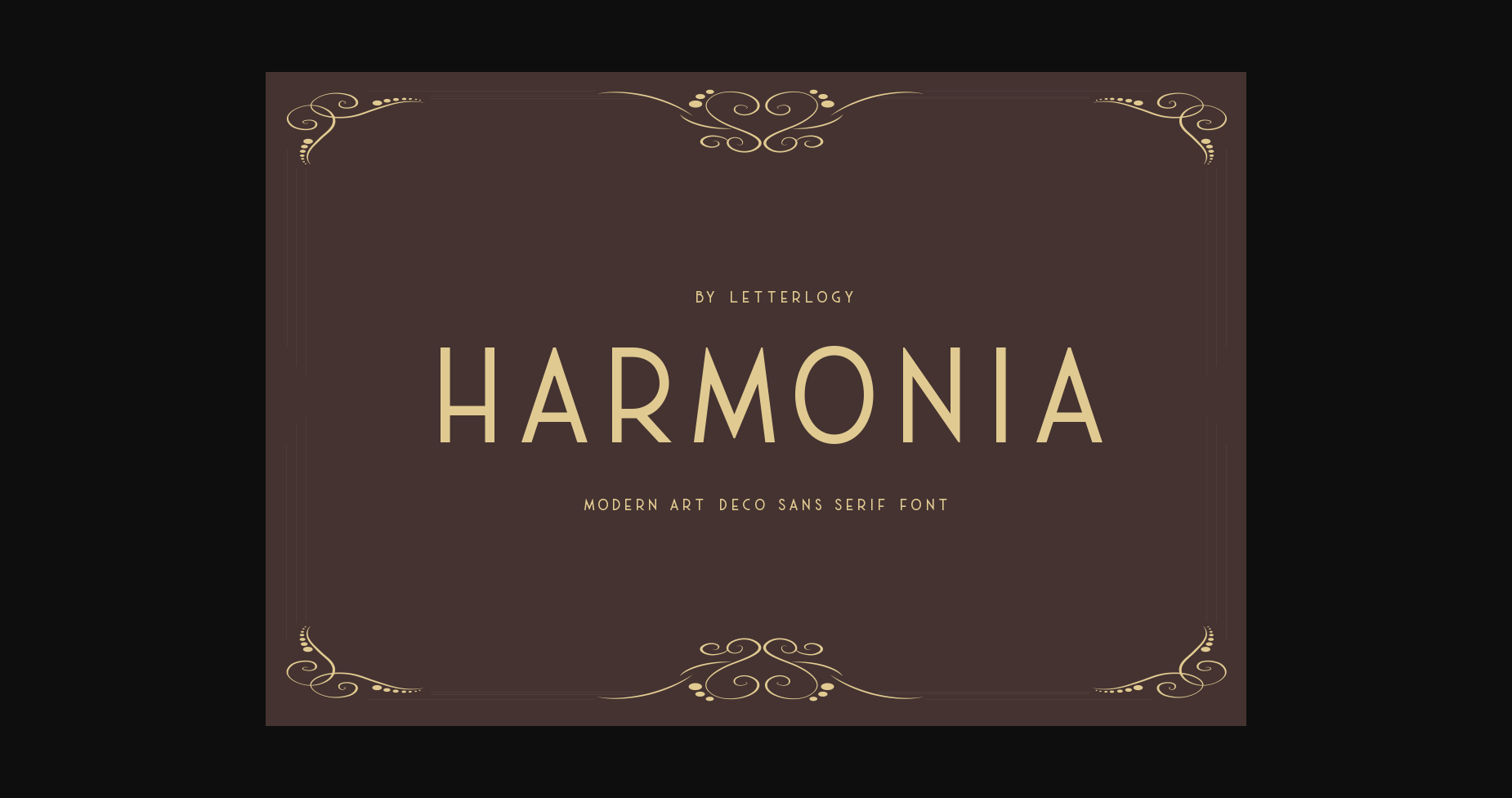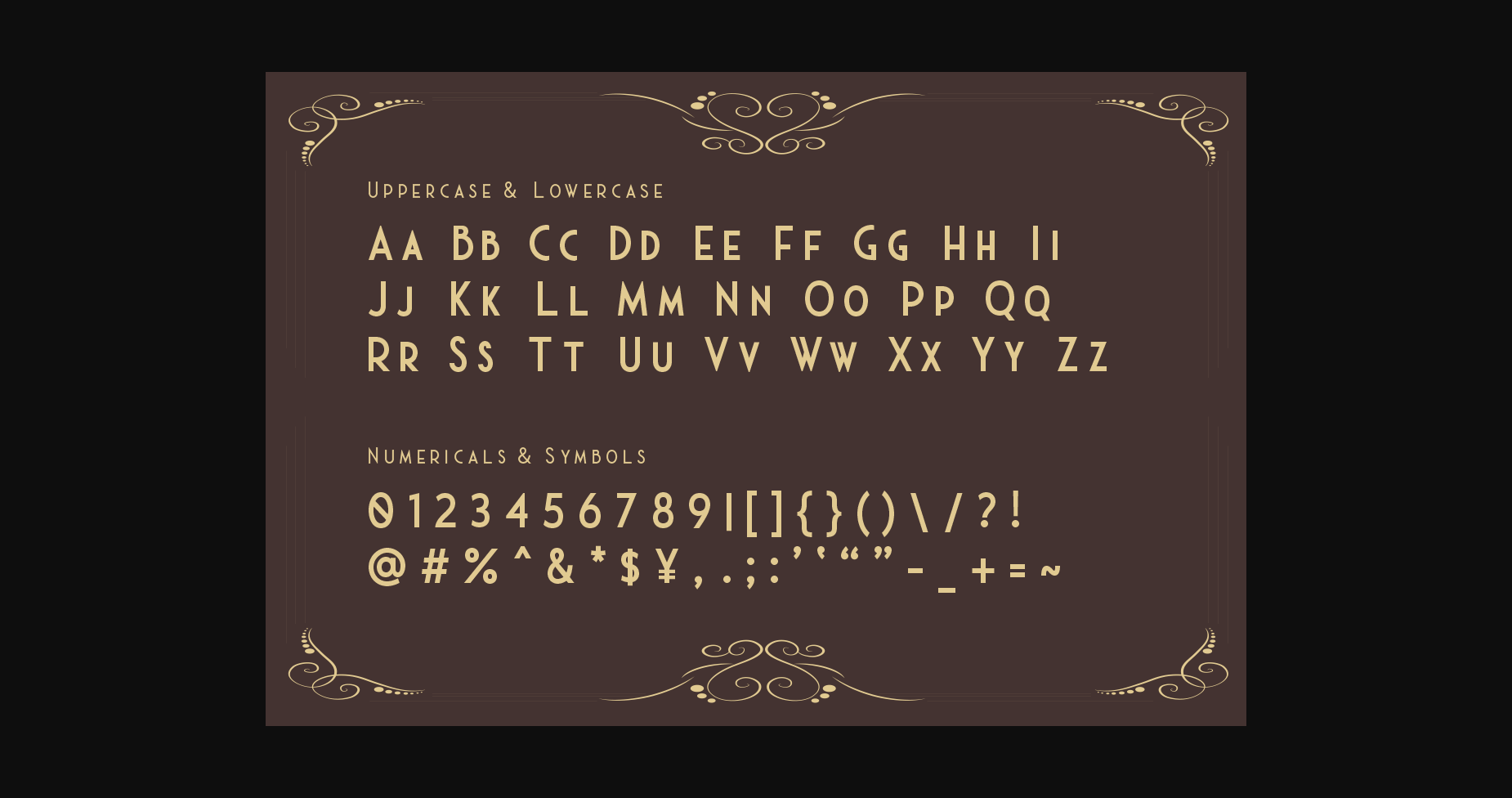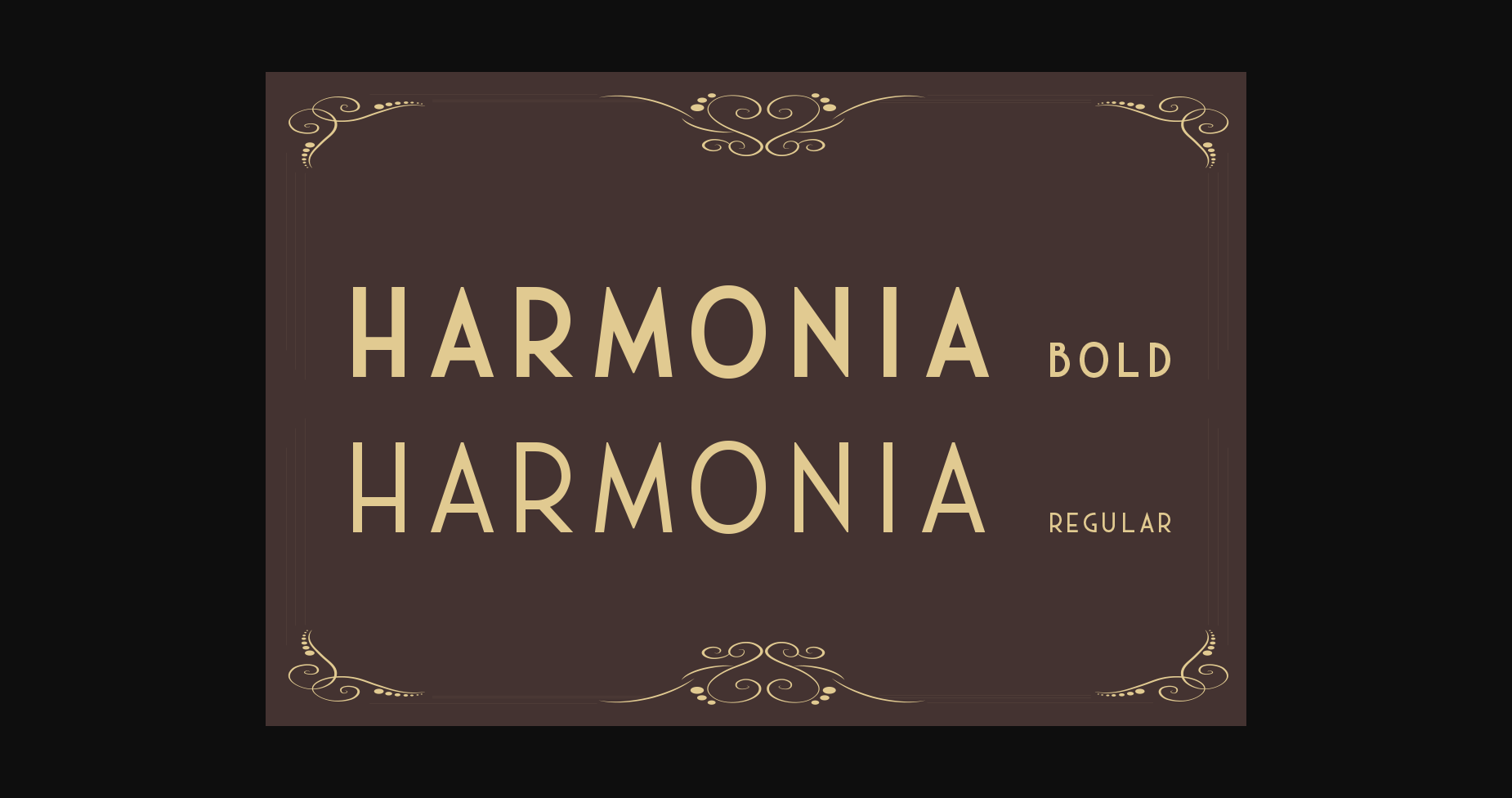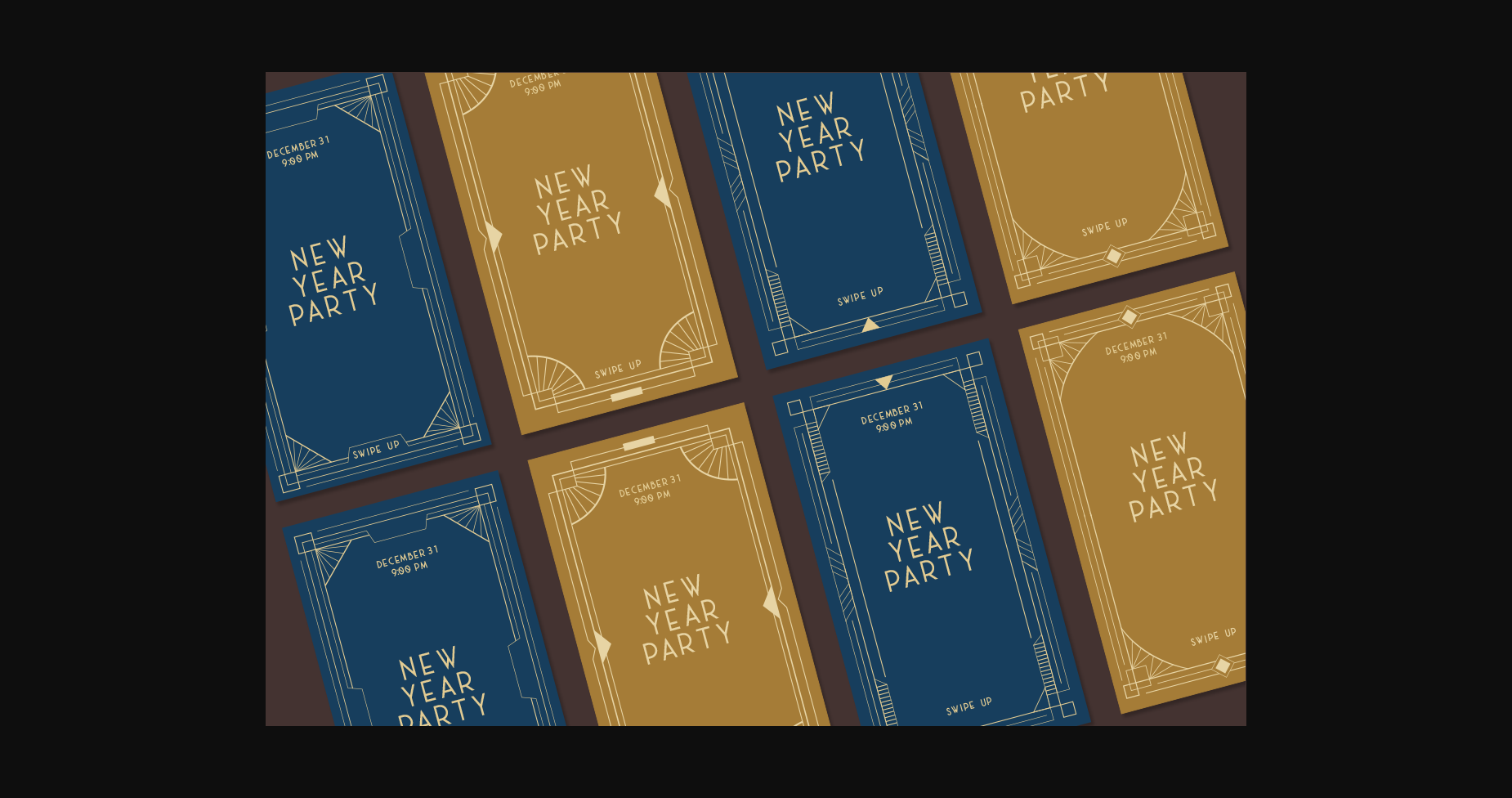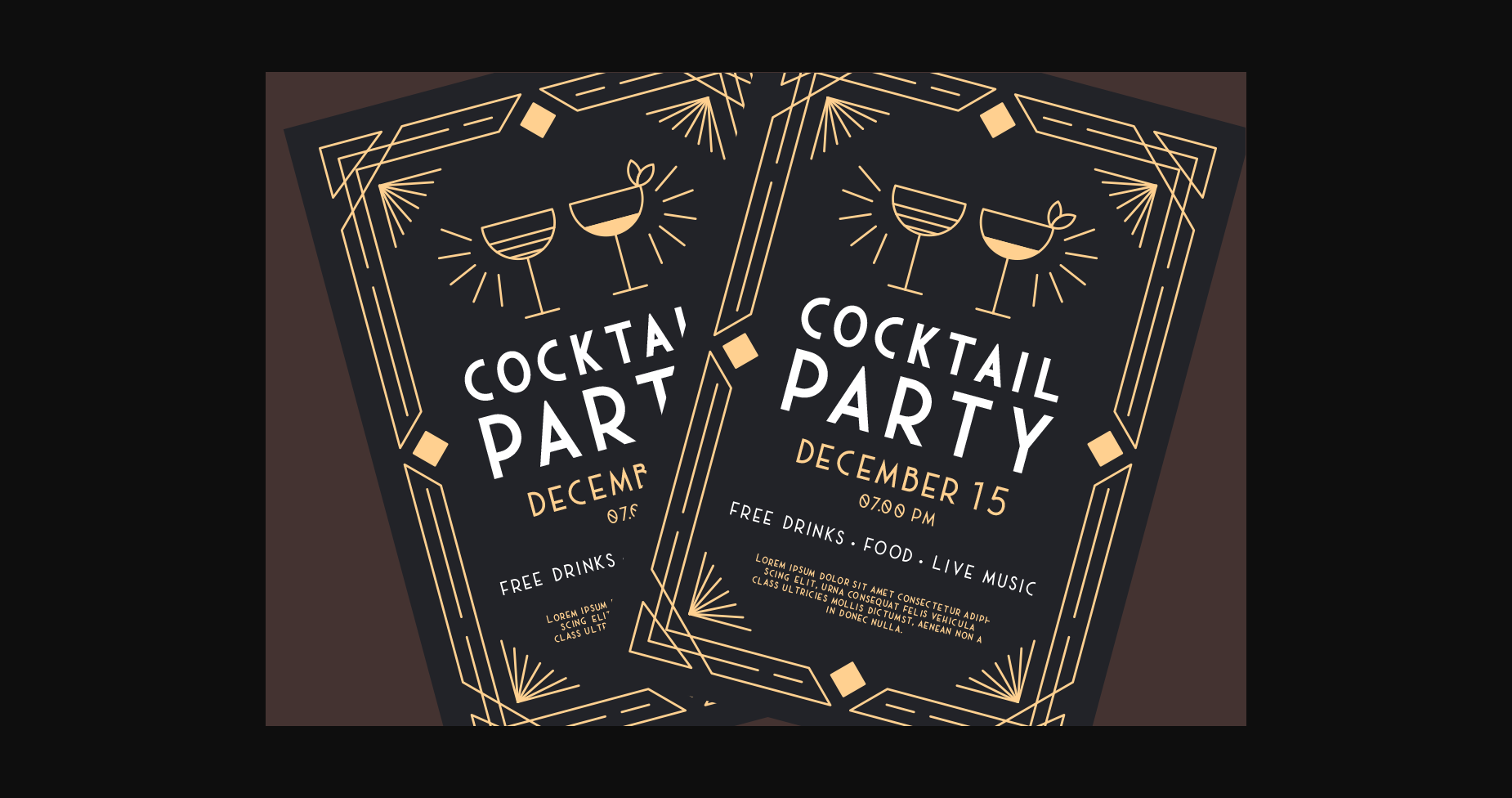
Harmonia Font
About Harmonia Font
Harmonia brings back the art deco golden age of the 1910’s into the modern era with a touch of flamboyance, readability, and personality. It will look stunning on any poster, flyer or print. Use this font for your designs and explore its endless possibilities.